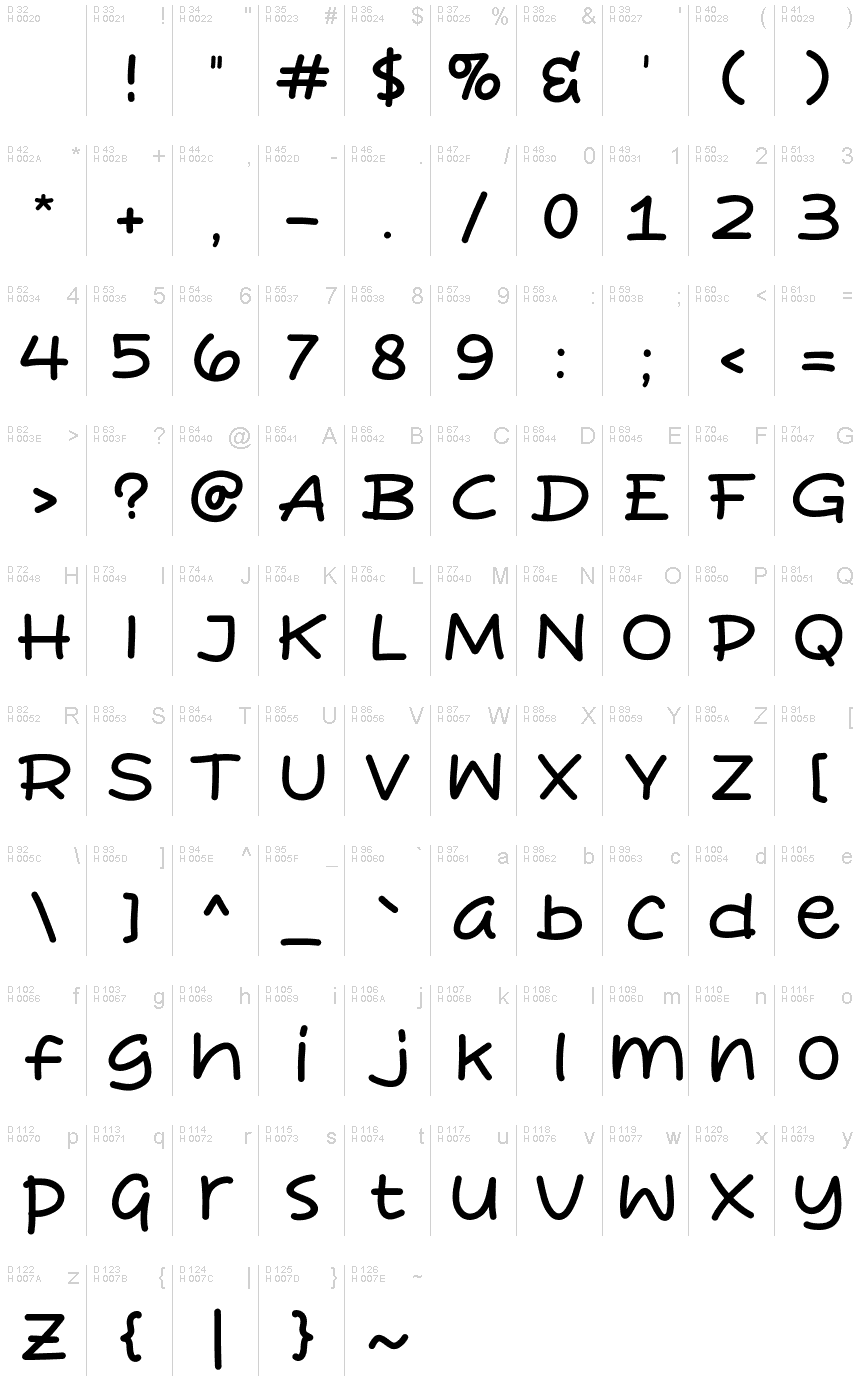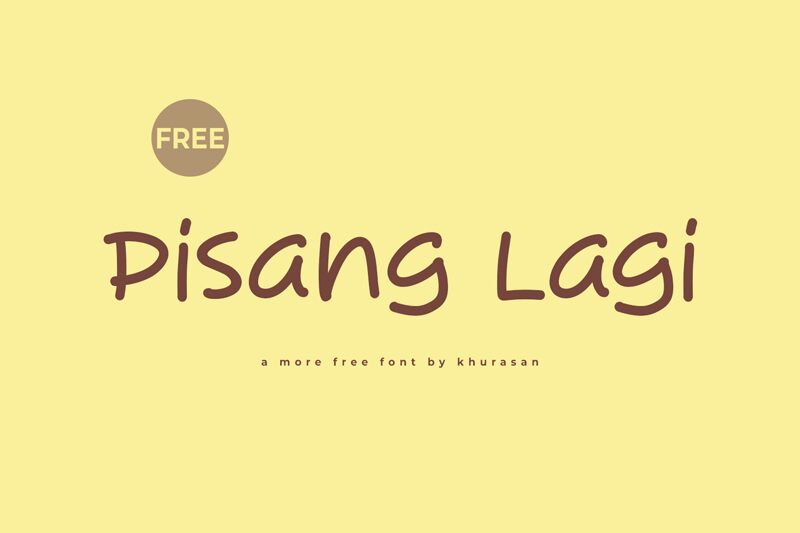
Pisang Lagi
Pisang Lagi, a creation by the talented Khurasan, stands out as an engaging handwritten font that captures the essence of personal touch in digital typography. With its semi-light weight and semi-expanded width, this typeface offers a breezy and approachable vibe that's perfect for a variety of creative endeavors.
The aesthetic appeal of Pisang Lagi lies in its ability to emulate the fluidity and spontaneity of human handwriting while maintaining excellent readability. The gentle curves and subtle variations in stroke thickness bring warmth and character to any project it graces.
Whether you're crafting invitations, designing logos, or spicing up social media content, Pisang Lagi is versatile enough to add that handcrafted feel without compromising on sophistication. Its distinct style bridges the gap between casual charm and professional elegance, making it an ideal choice for brands looking to express authenticity with a modern flair.